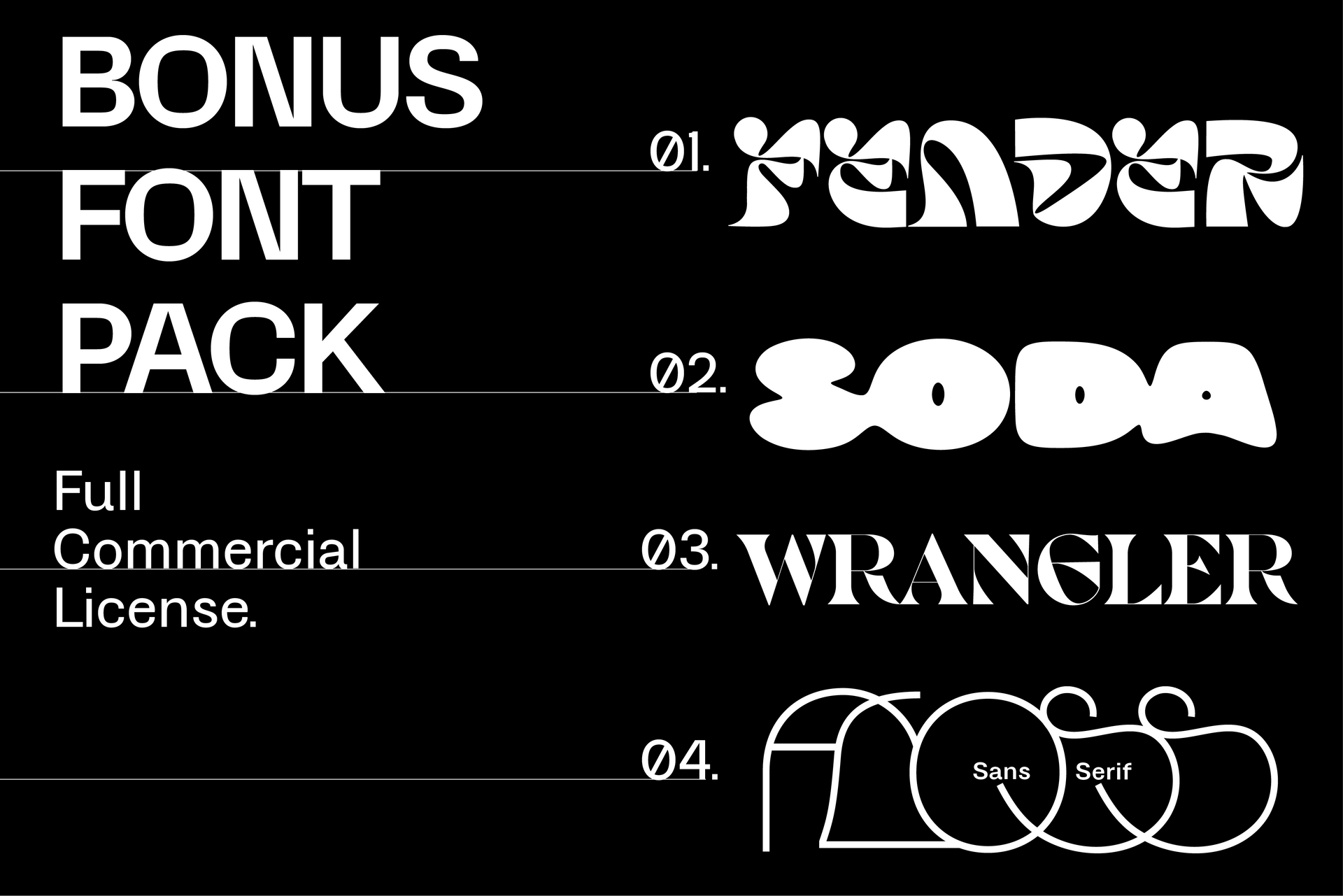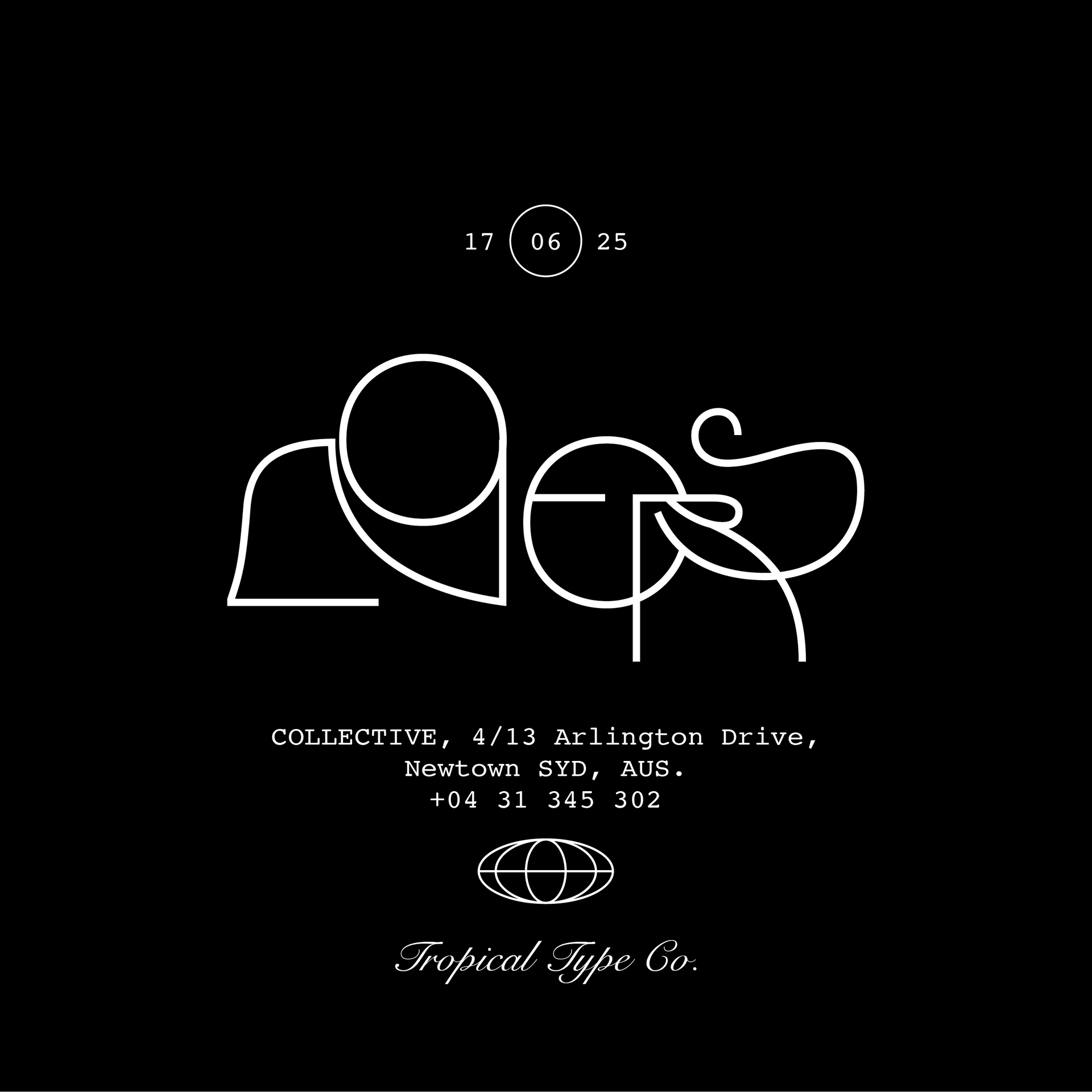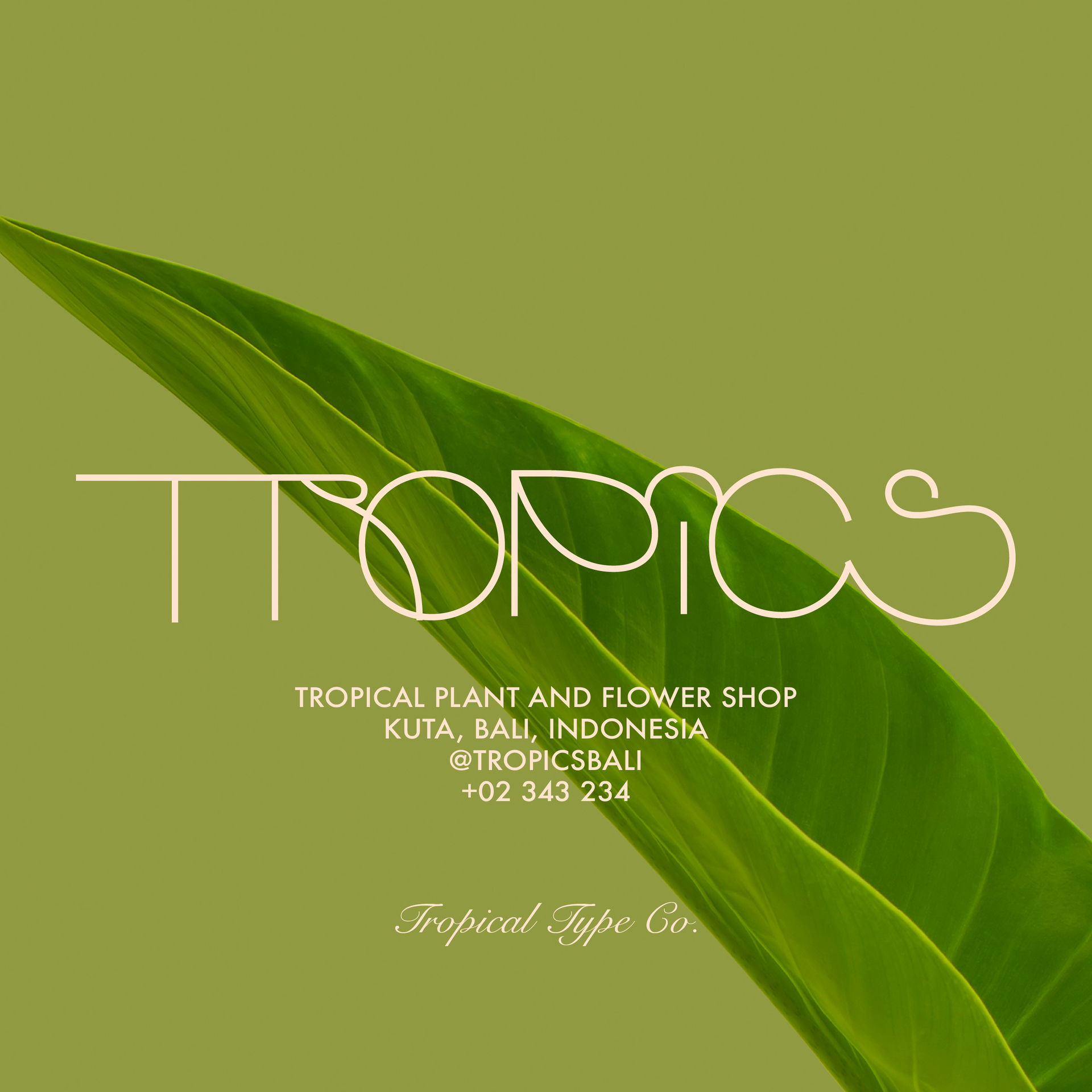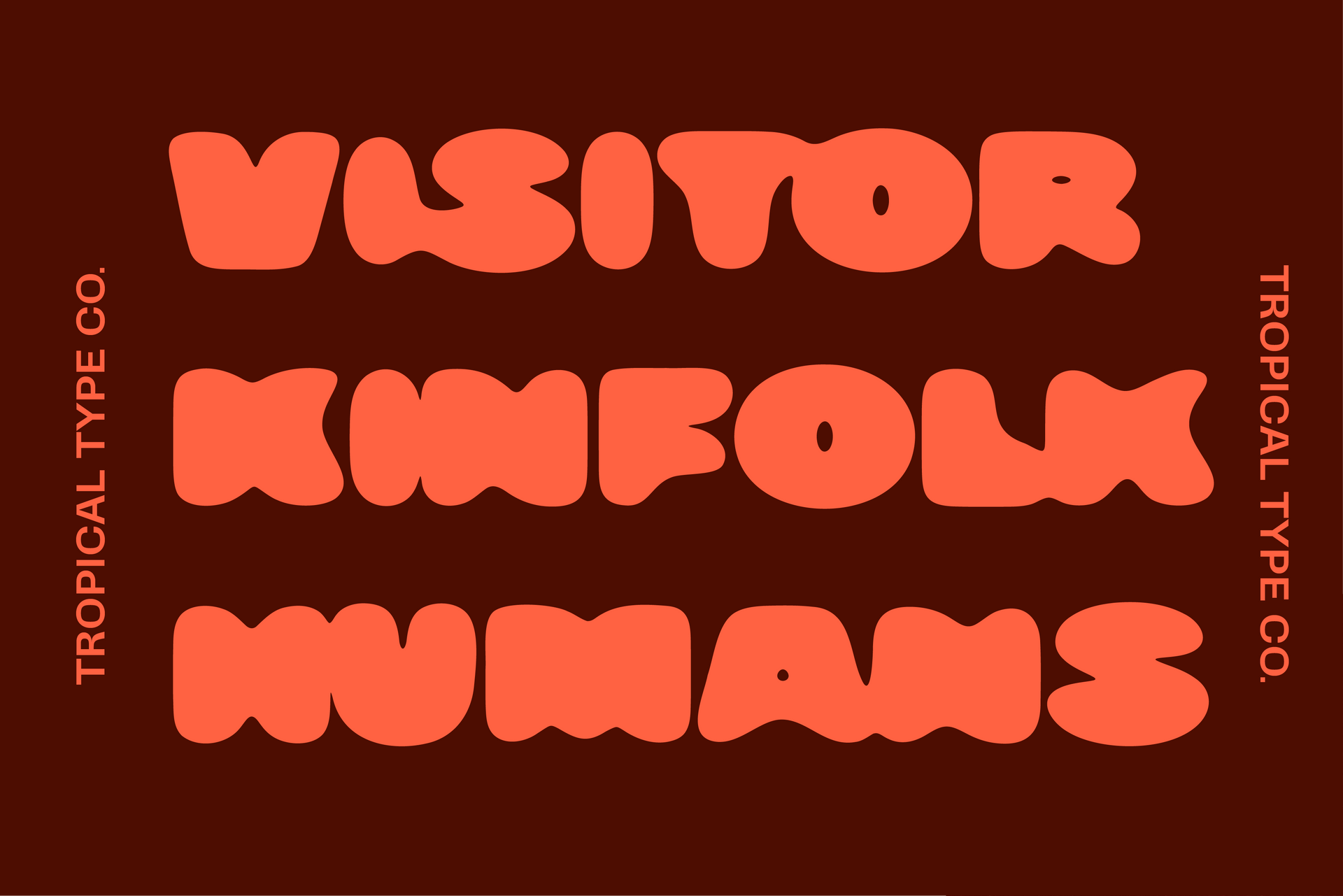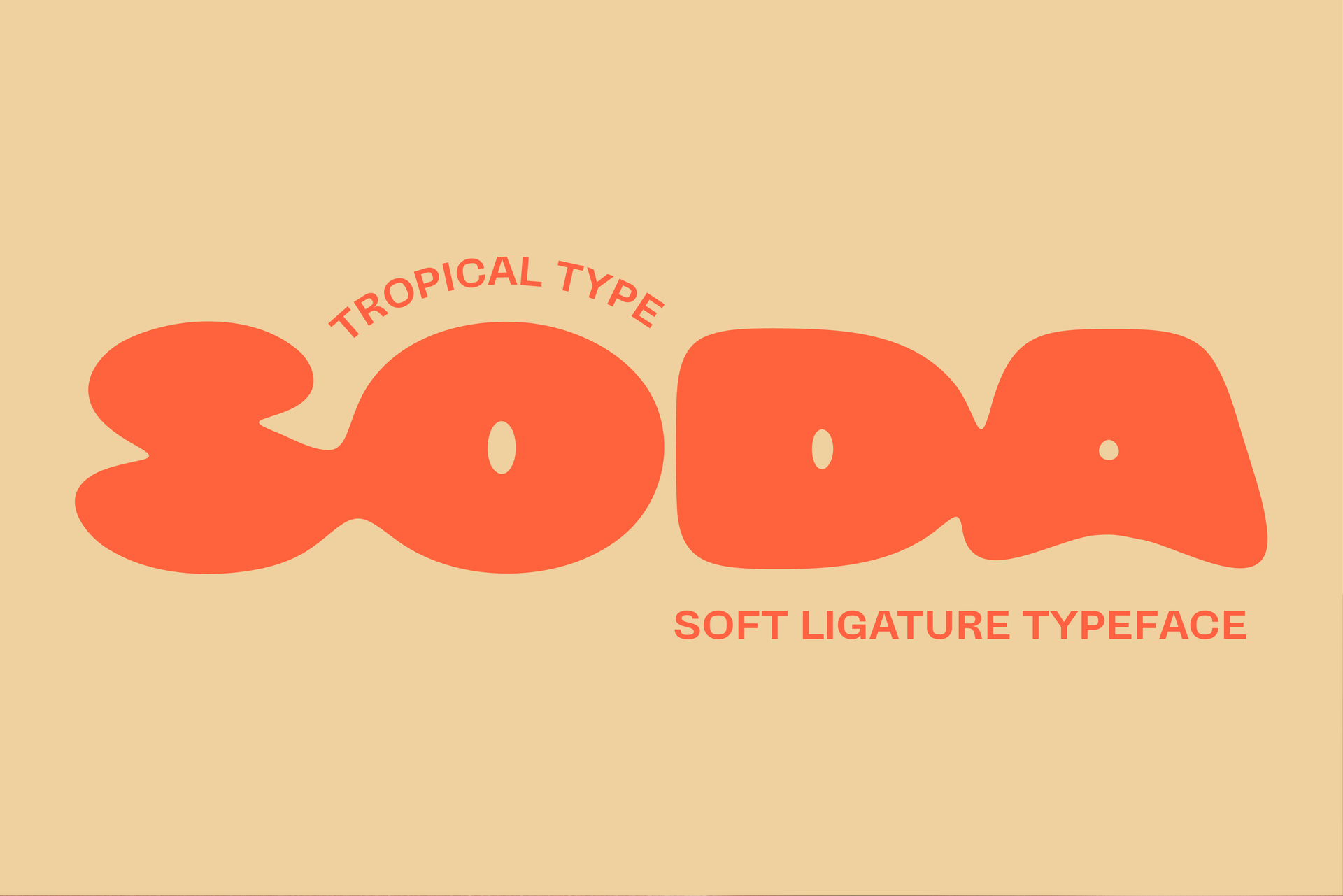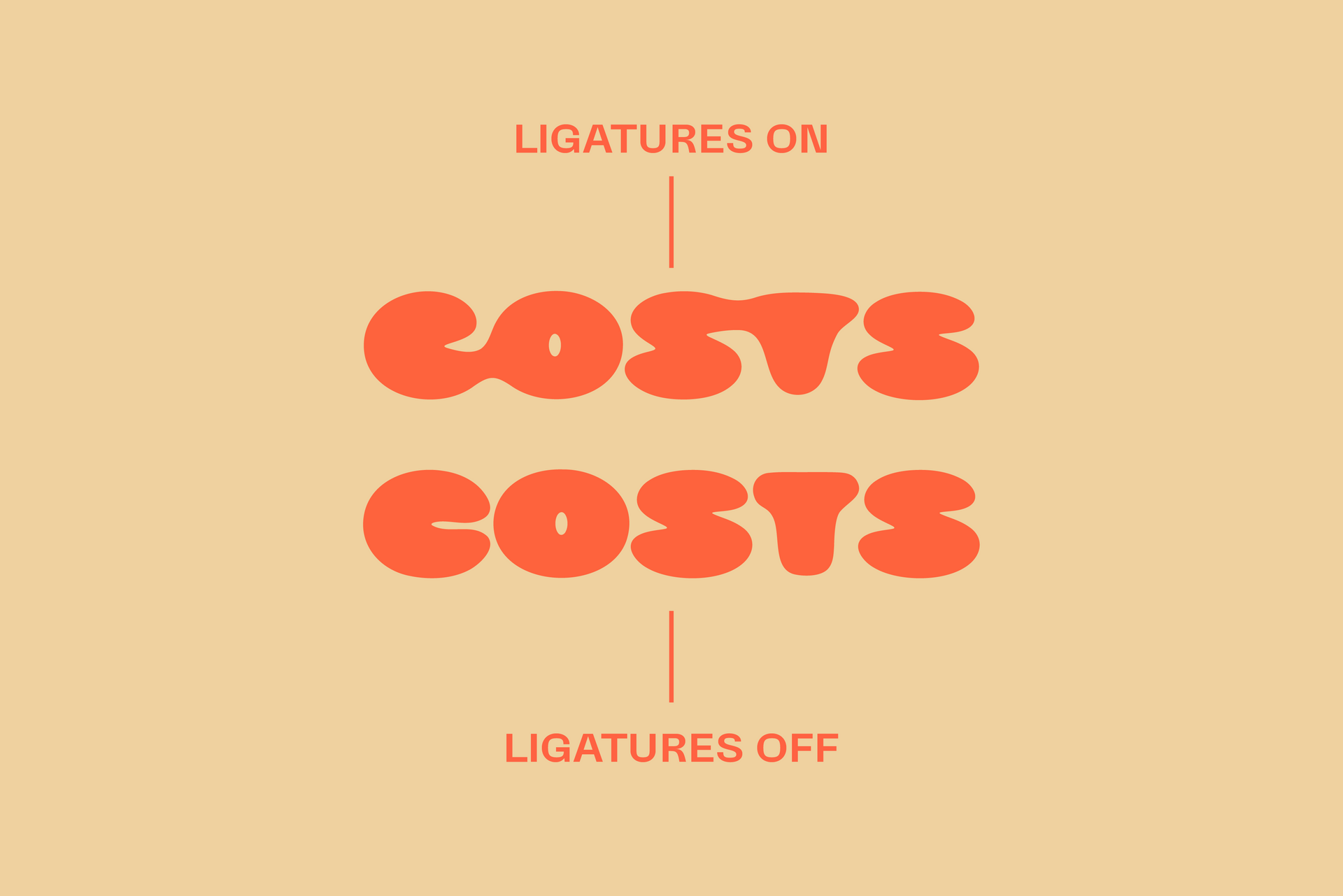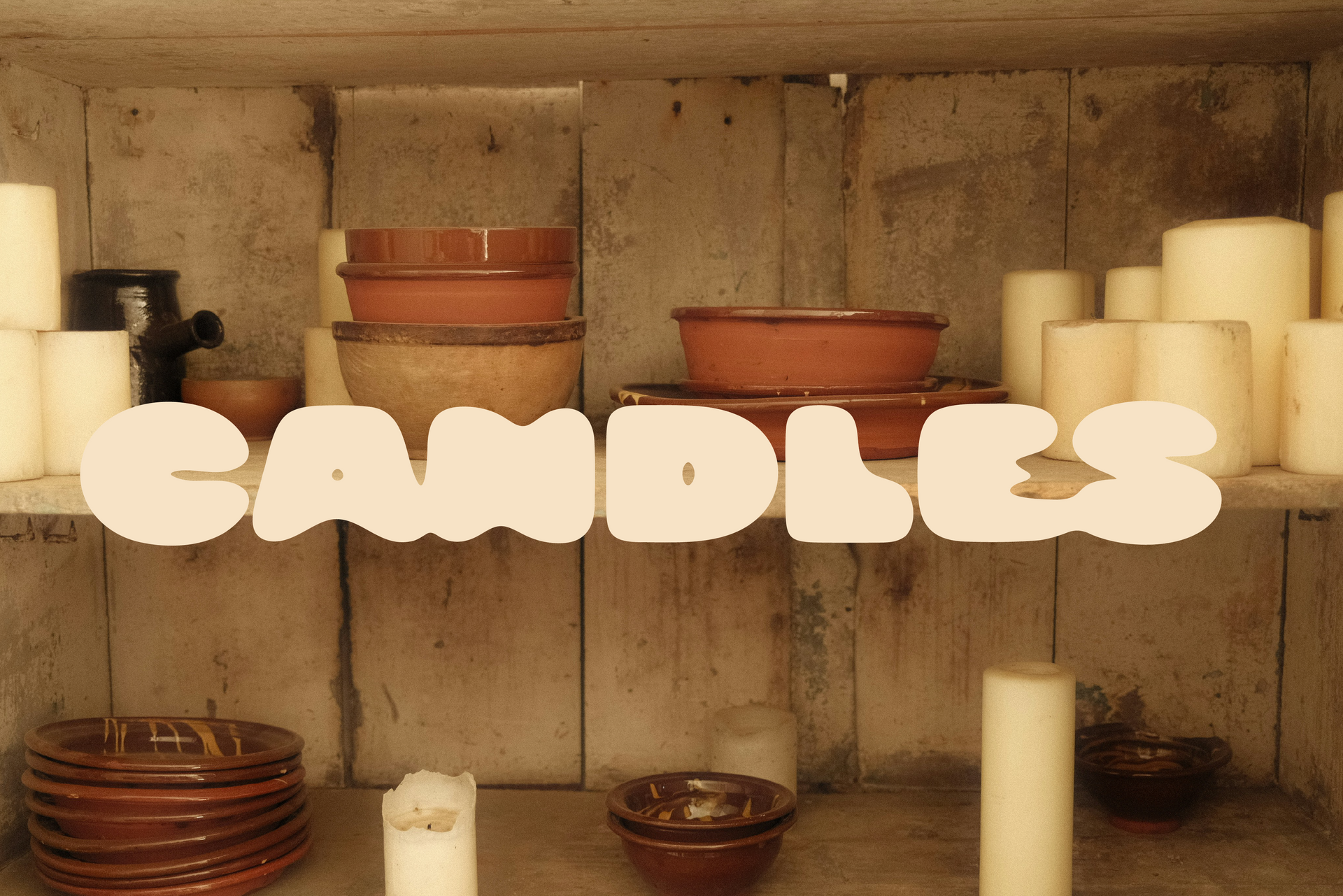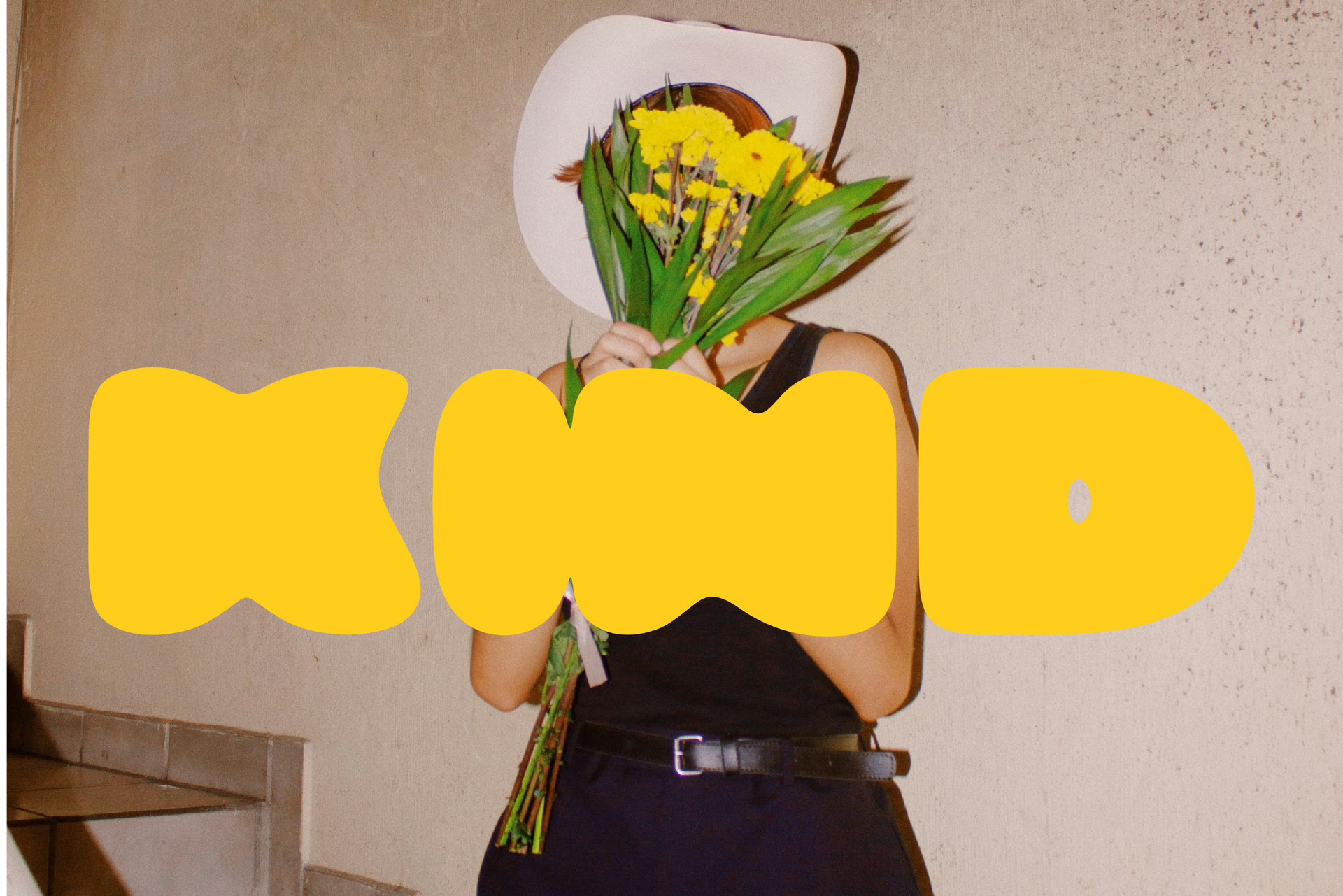
BONUS FONT PACK
The bonus font pack includes SIX exciting fonts and is 100% free for commercial use when you spend over $30 - Auto added to cart. It contains Soda Sans, a melting connected bold sans-serif; Wranger, an edgy all-caps serif. Fender, an experimental trippy font. Floss, a thin unique display font with mix-and-match cases. Honeychrome Bold, an edgy alternative to helvetica, and finally, Stylebender Contrast Italic, a stunning ornate italic that pairs nicely with most serifs.